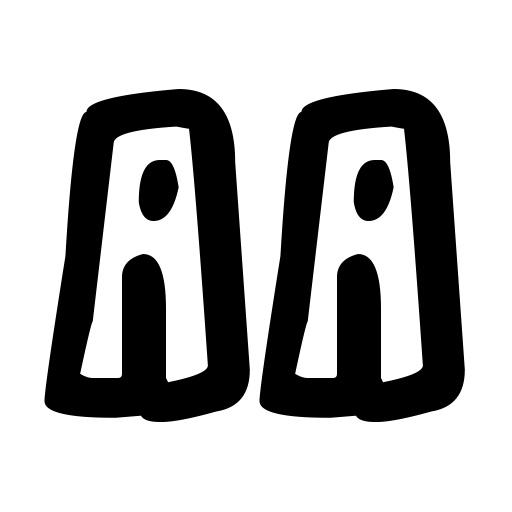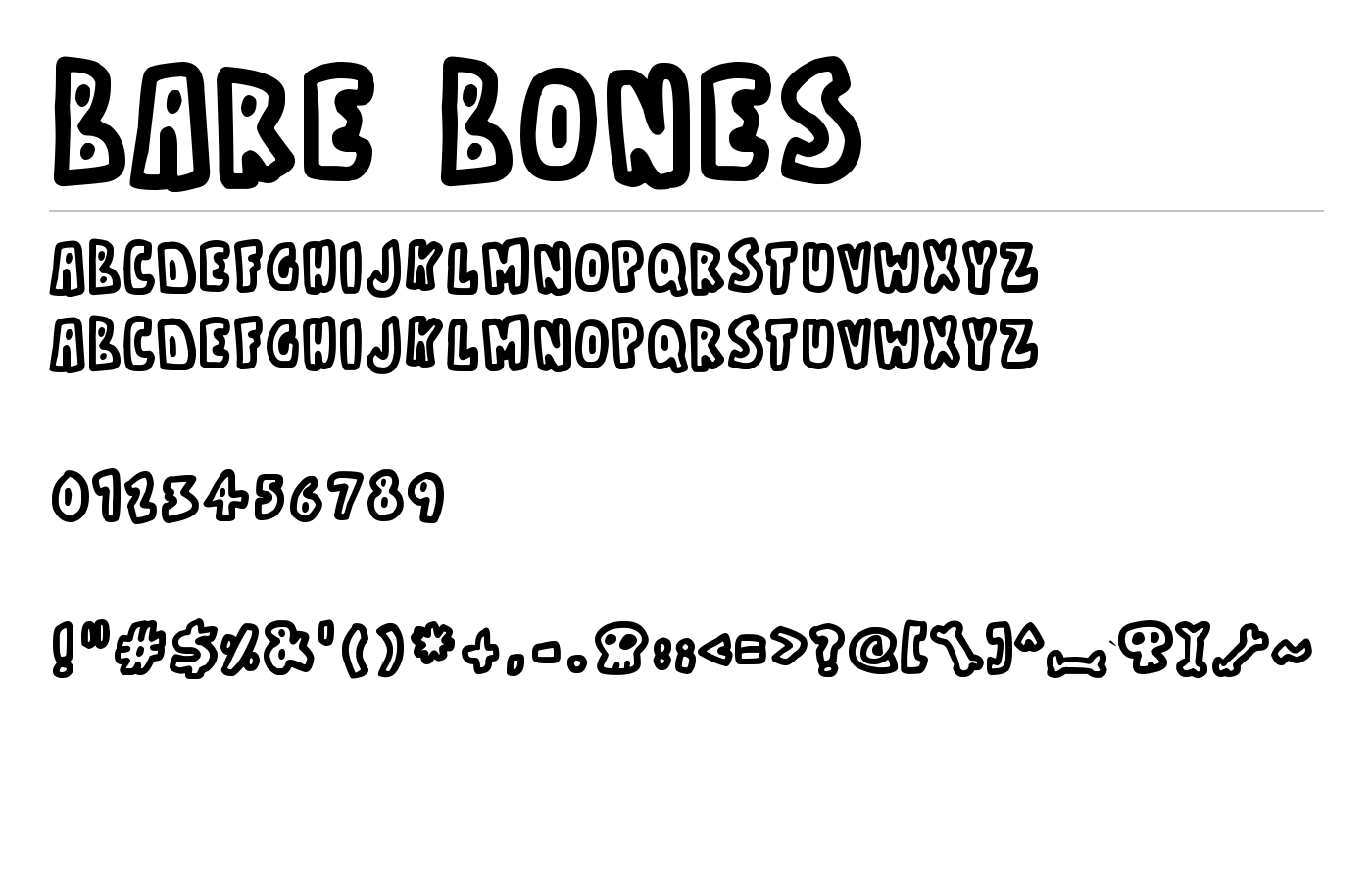
Bare Bones is a playful, chunky display font characterized by its bold, irregular letterforms and hand-drawn style that evokes a fun, casual vibe. Its quirky shapes and bone-inspired details make it perfect for creative projects, such as Halloween themes, children’s designs, or any branding that seeks a lighthearted, approachable personality. This font works best in headlines, logos, and posters where a unique, eye-catching look is desired.
Bare Bones Font
About Bare Bones Font